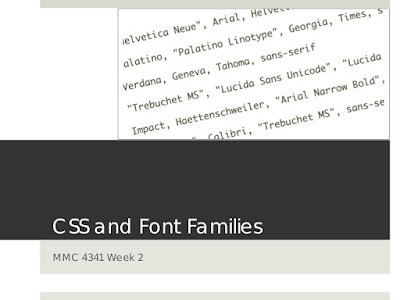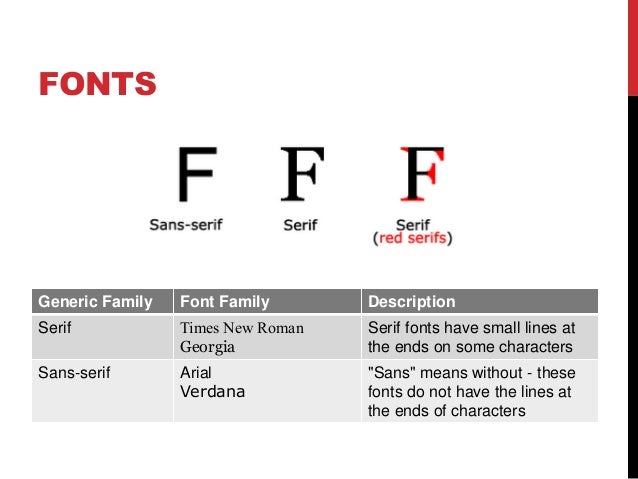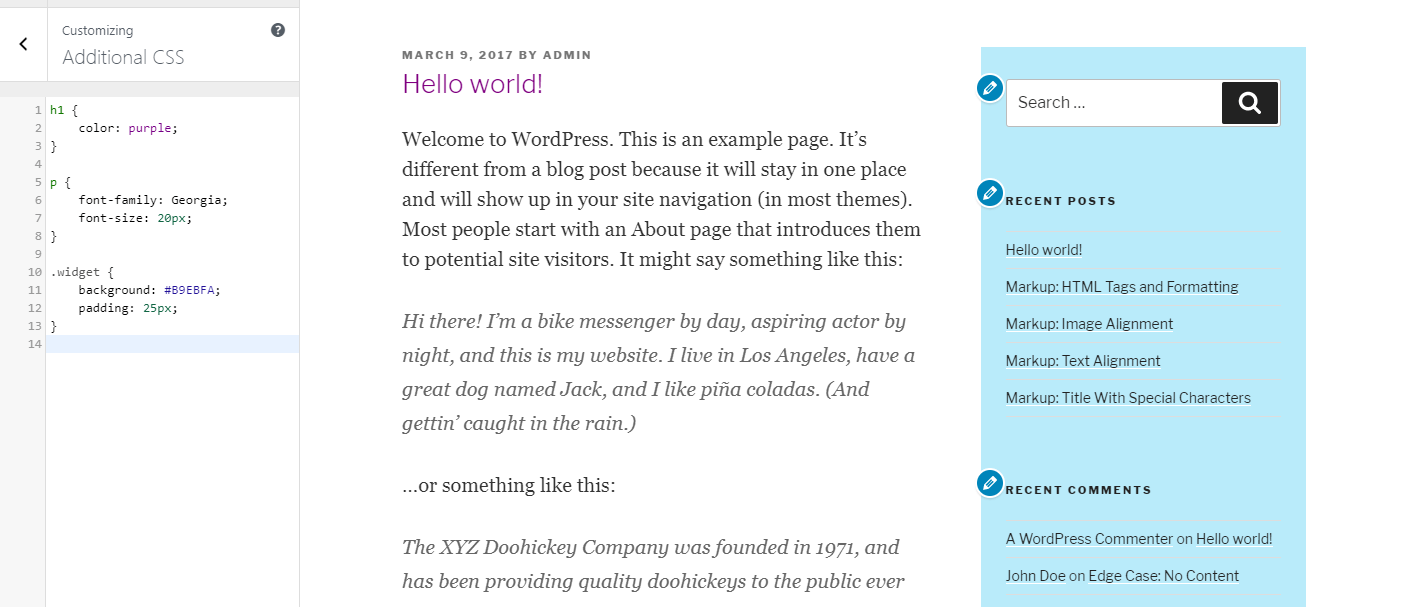
Georgia Font Family Css
Since not all fonts are available on all computers there are thousands of fonts and most are not free css provides a system of fallbacks.
Georgia font family css. Here you can easily choose a web safe font from the dropdown increase the font size set the letter and word spacing. Start with the font you want and end with a generic family to let the browser pick a similar font in the generic family if no other fonts are available. Css font family property.
Finding the correct line to declare a css font is not always the easiest thing that is in top of peoples head. There are two types of font family names. On this page i wont show any tricks but i will show the range of font variations that css allows.
If the browser does not support the first font it tries the next font and so on. Download georgia font for pcmac for free take a test drive and see the entire character set. If the browser does not support the first font it tries the next font.
Georgiatimestimes new romanserif preview your fonts your headline is in georgia this is a sub heading in georgia. The font family css property specifies a prioritized list of one or more font family names andor generic family names for the selected element. The font family property specifies the font for an element.
The font family property can hold several font names as a fallback system. Keep reading for how to use the buttons to the left. Although inspired by the need for and providing clarity at low resolutions on the screen georgia is a typeface resonant with typographic personality.
Web safe fonts mean that they will look perfect no matter the browser you are viewing them from. Css font family defines the priority for the browser to choose the font from multiple fonts. Moreover you can embed it to your website with atfont face support.
We have gathered together a nice resource list of stunning web safe fonts that you can use with css. The font family property should hold several font names as a fallback system. Also these fonts are very popular and are most likely to be pre installed on your operating system be it windows ios or even linux.